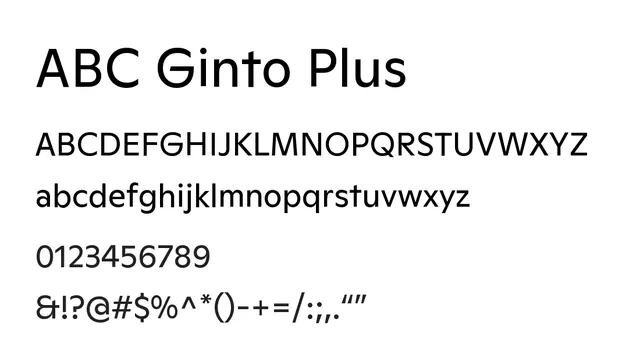
ABC Ginto Nord Plus
ABC Ginto Nord Plus, modern, clean
A geometric neo-grotesque sans-serif with tight spacing and precise letterforms, ideal for contemporary tech and corporate branding.
Best used for headlines and UI elements where clarity and modern aesthetics are paramount. The tight spacing works well for display purposes and tech-forward brands.
Pairs well with Inter or IBM Plex Mono for body text in tech products.